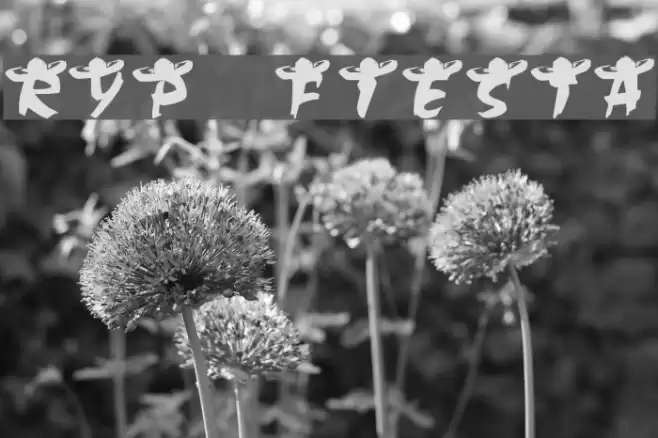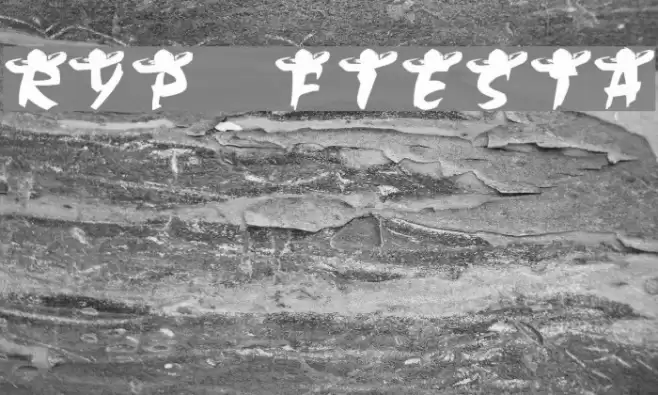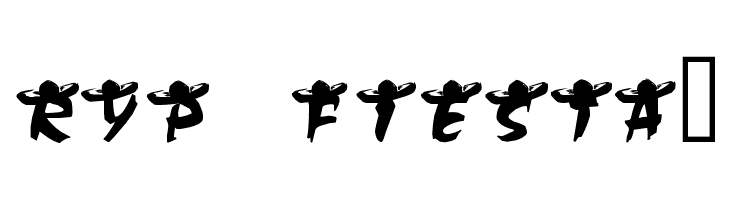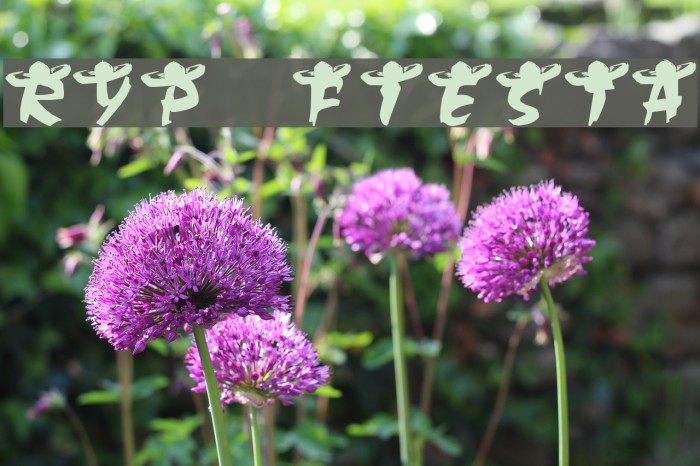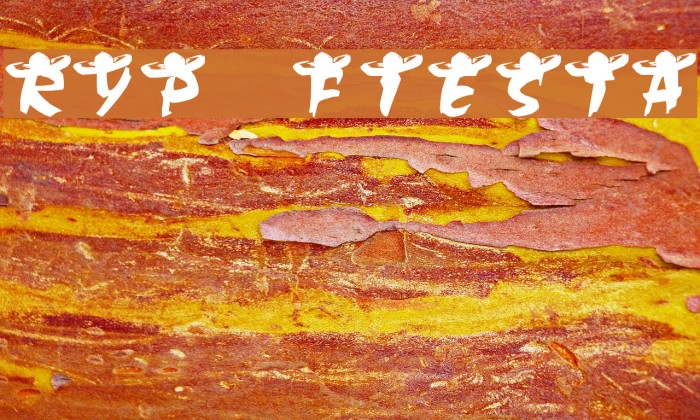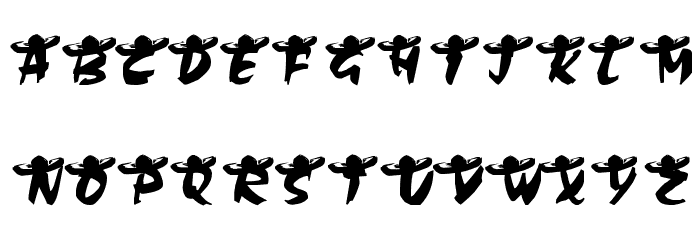
ryp_fiesta2 Font
ryp_fiesta2 Description
This font features a bold and expressive style with a playful, decorative flair. Each character is adorned with unique, swirling elements that give it a festive and dynamic appearance. The uppercase letters are particularly striking, with strong, thick strokes that convey a sense of energy and movement. The lowercase letters maintain this lively aesthetic, ensuring consistency throughout the typeface. The absence of numerals and special characters suggests a focus on artistic expression rather than functionality. Overall, this font is designed to capture attention and evoke a sense of celebration.
A bold, decorative font with swirling, festive elements from Images & Symbols fonts.